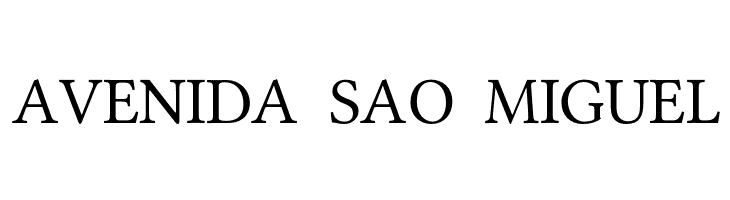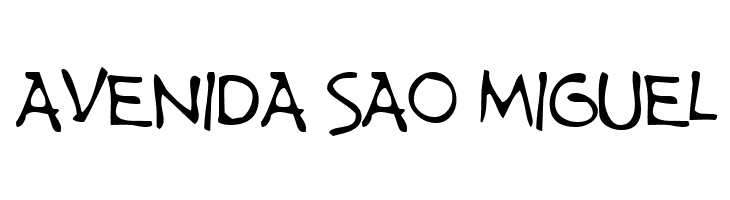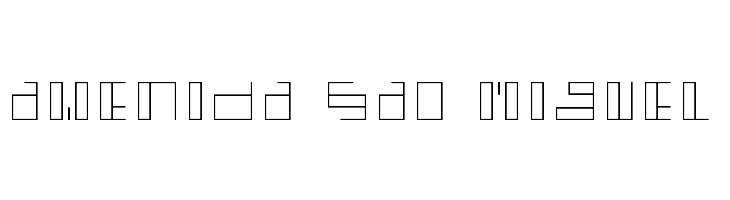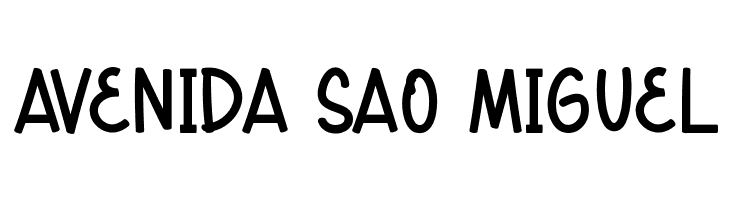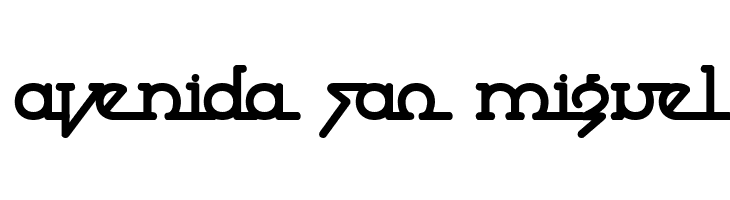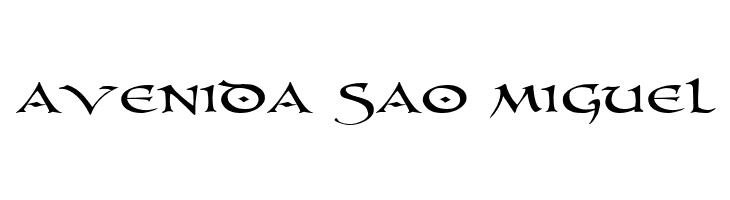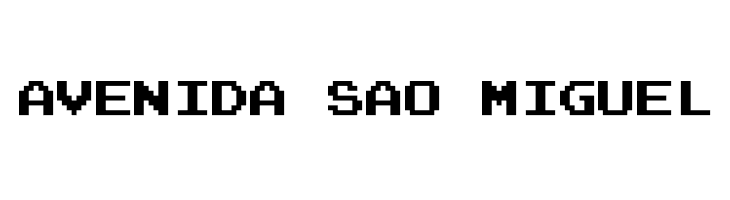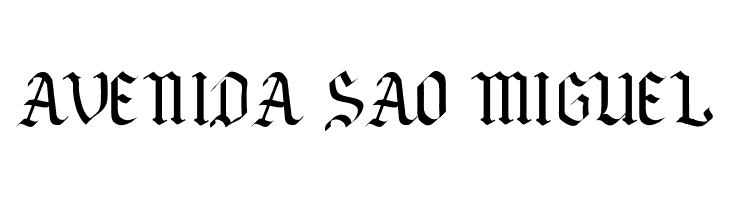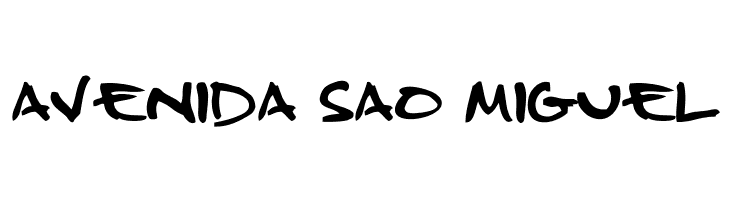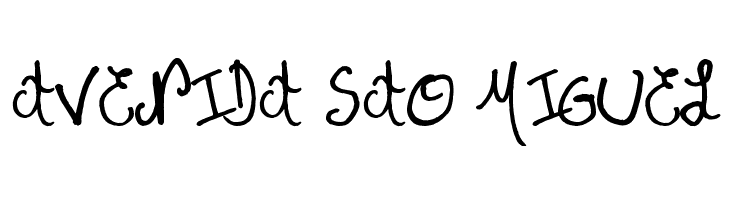
A geometric, minimalist font with thin, linear strokes and a futuristic look.
A playful, hand-drawn font with rounded serifs and a whimsical style.
A bold, pixelated font with a retro digital style.
A classic serif font with elegant, traditional letterforms and medium contrast.
A classic serif font with elegant curves and moderate contrast.
A bold, Gothic-style font with intricate, high-contrast letterforms.
A bold, rounded font with a modern and playful style.
A modern sans-serif font with a playful touch and subtle stroke variation.
A robust slab serif font with strong, block-like serifs and a classic yet modern style.
A modern, rounded font with uniform stroke width and geometric influences.
A bold, rounded font with a modern and approachable style.
A bold, rounded, and geometric font with interconnected characters.
A playful, hand-drawn font with rounded, informal letterforms.
A medieval-inspired font with ornate, angular strokes and unique embellishments.
A retro, pixelated font inspired by classic video game graphics.
A pixelated, retro-style font inspired by classic 1980s video games.
A delicate, flowing script font with elegant, thin strokes.
A playful, handwritten script font with a smooth, cursive flow.
A playful, modern font with bold curves and consistent stroke width.
A flowing, cursive script with elegant loops and dynamic contrast.
A bold, modern font with a slightly condensed style and medium contrast.
A playful, hand-drawn font with irregular, wavy strokes and a whimsical style.
A playful, handwritten font with whimsical and elegant characteristics.
An elegant script font with flowing, interconnected letters and ornate uppercase characters.
A bold, geometric font with sharp angles and a blocky structure.
A modern, rounded inline font with a clean and contemporary style.
A modern, inline typeface with thin strokes and geometric structure.
A modern, thin, rounded inline font with a sleek and geometric design.
A bold, modern font with a partial inline style for dynamic design.
A bold, modern font with partial inline and rounded edges.
A bold, modern font with a partial inline style for a unique, structured look.